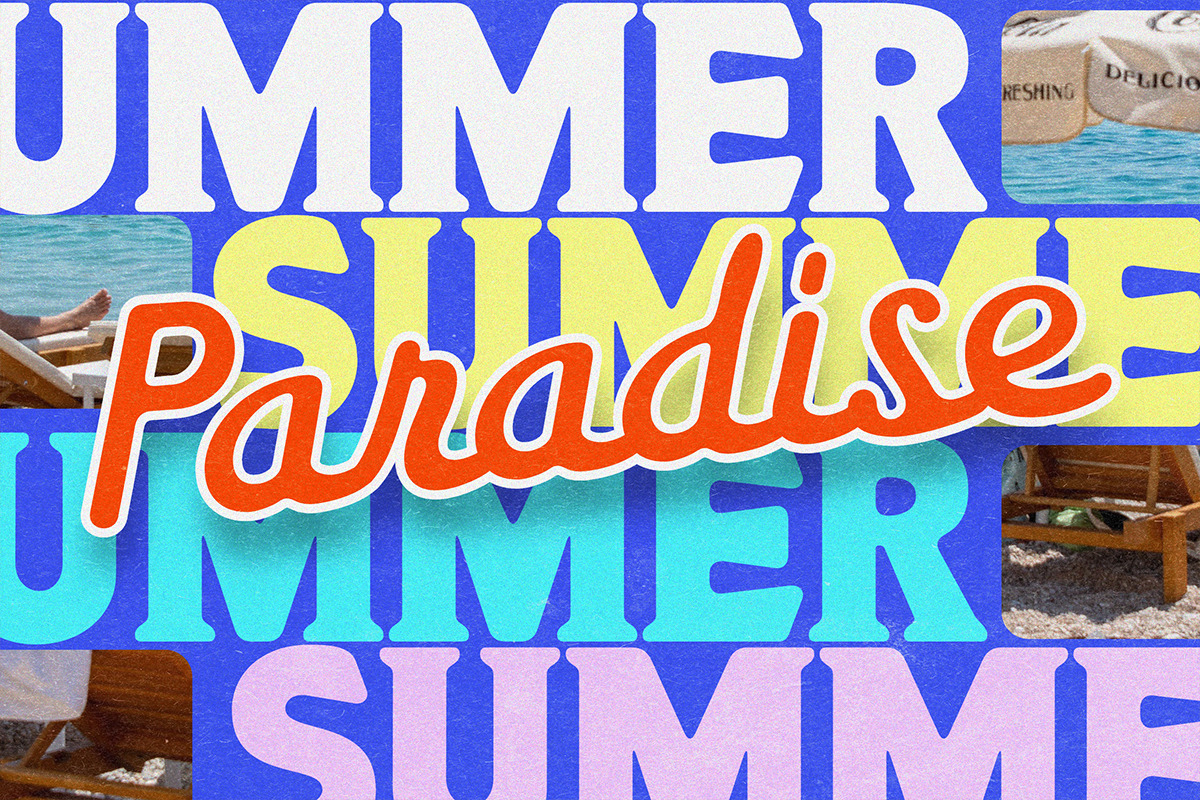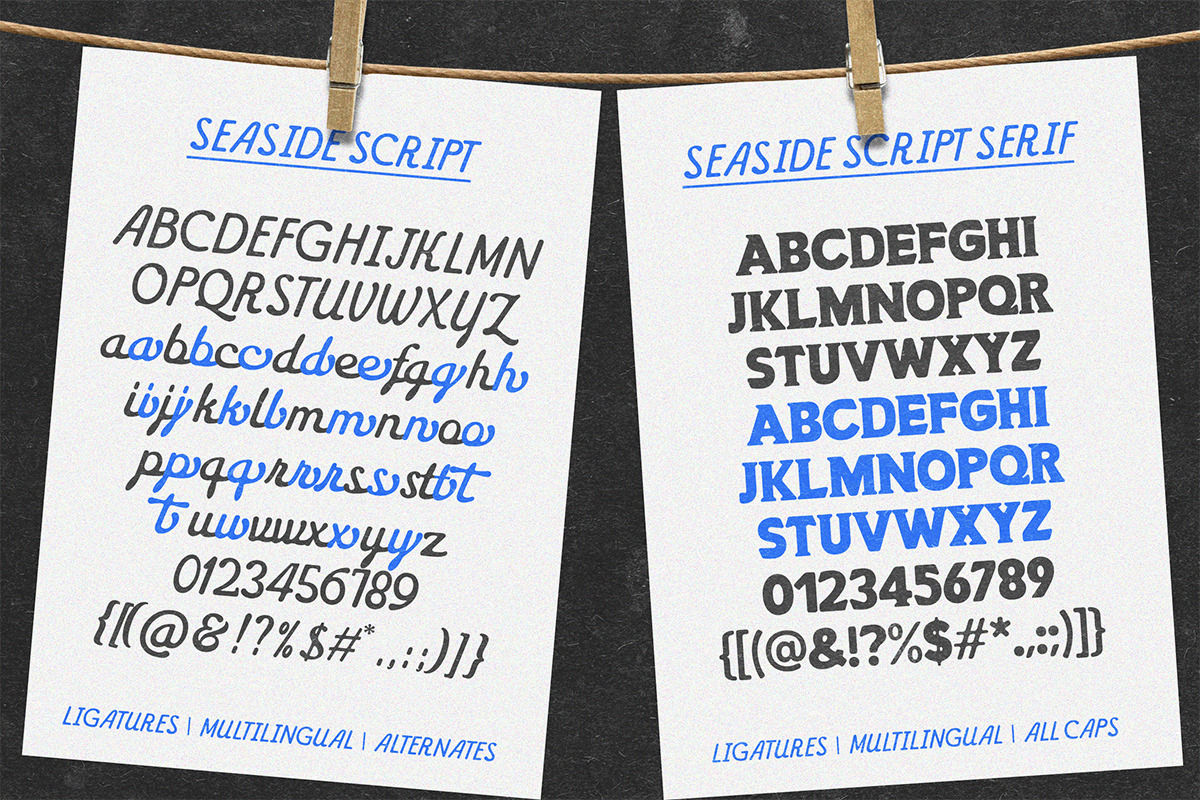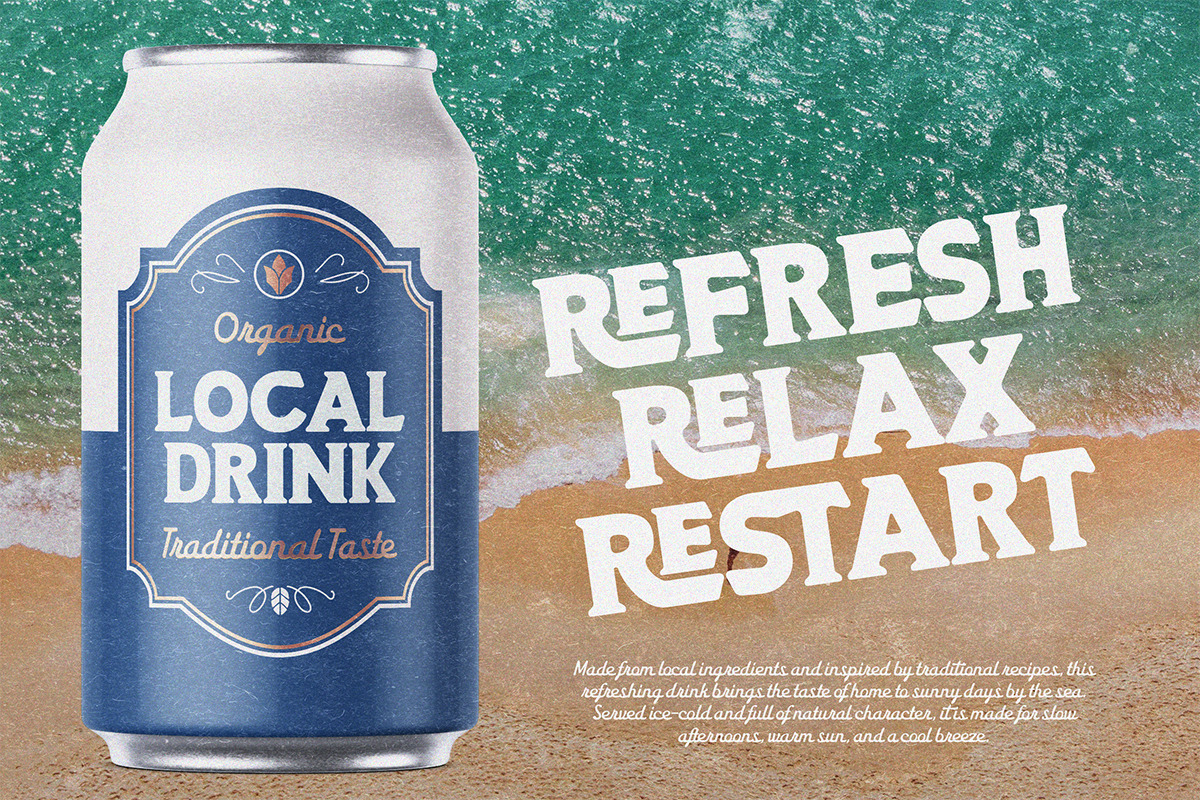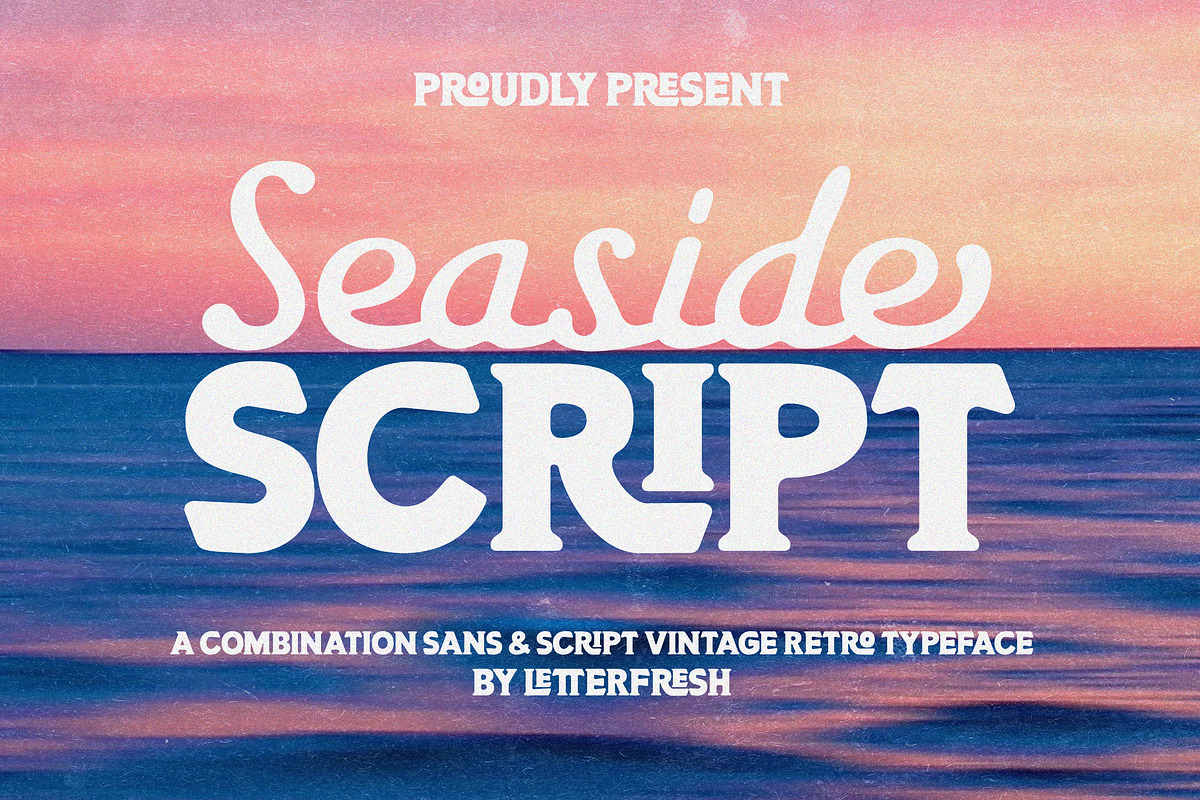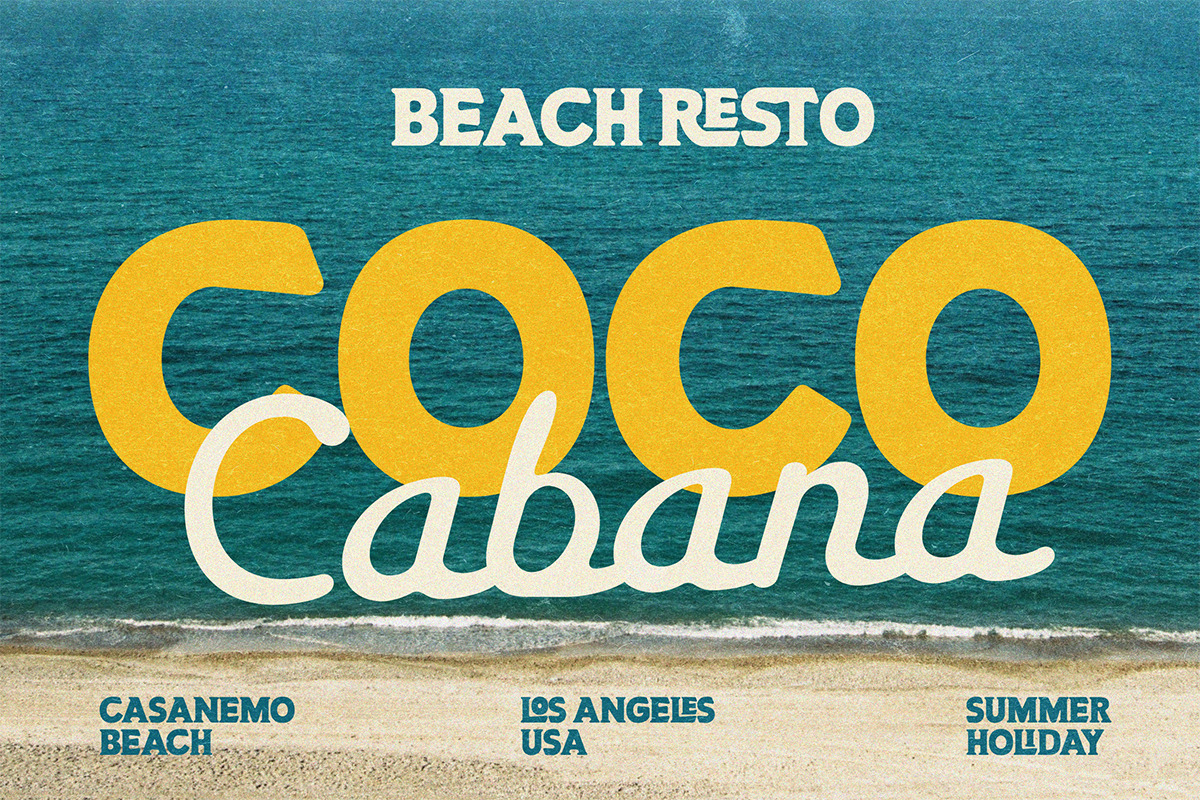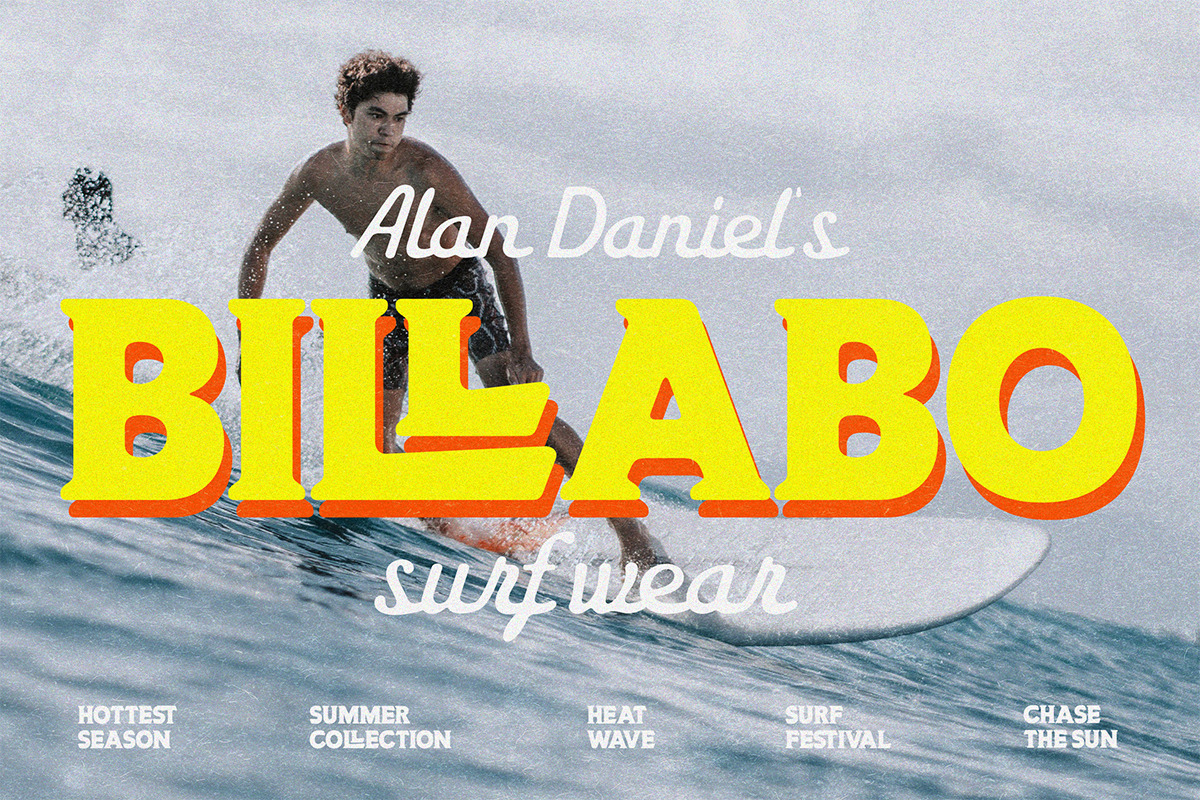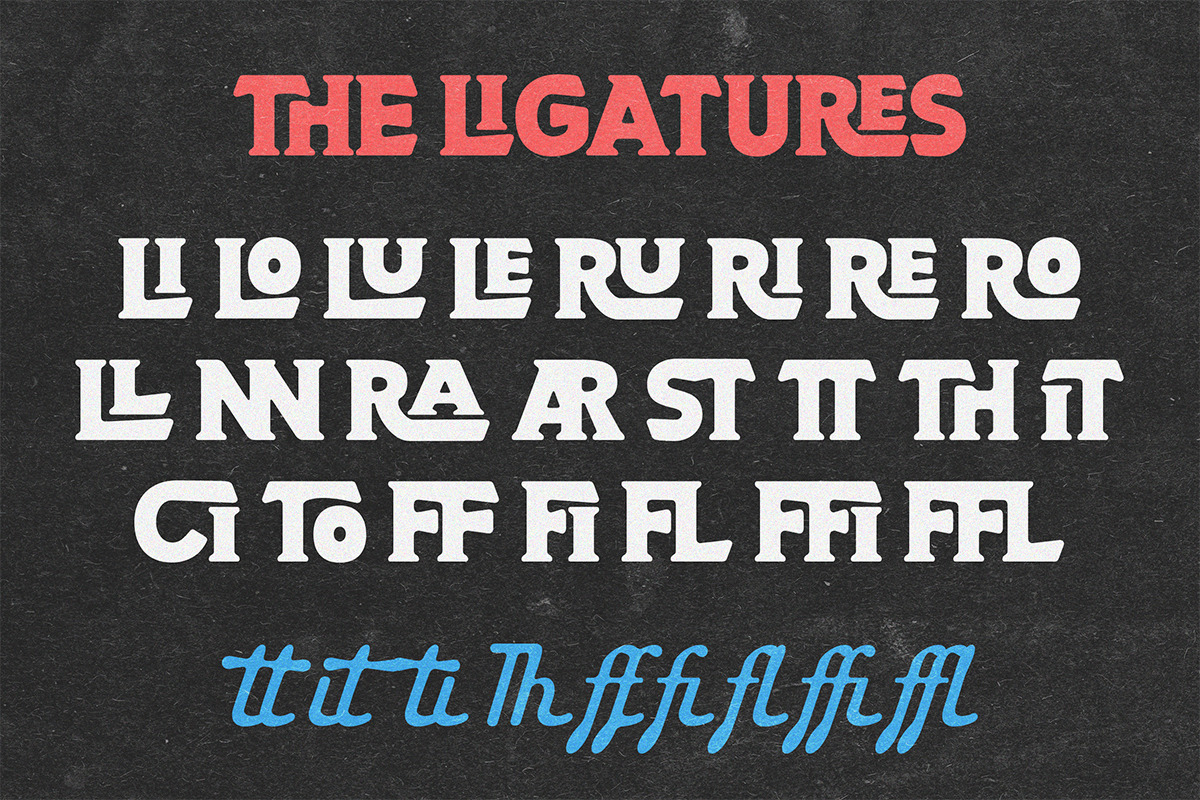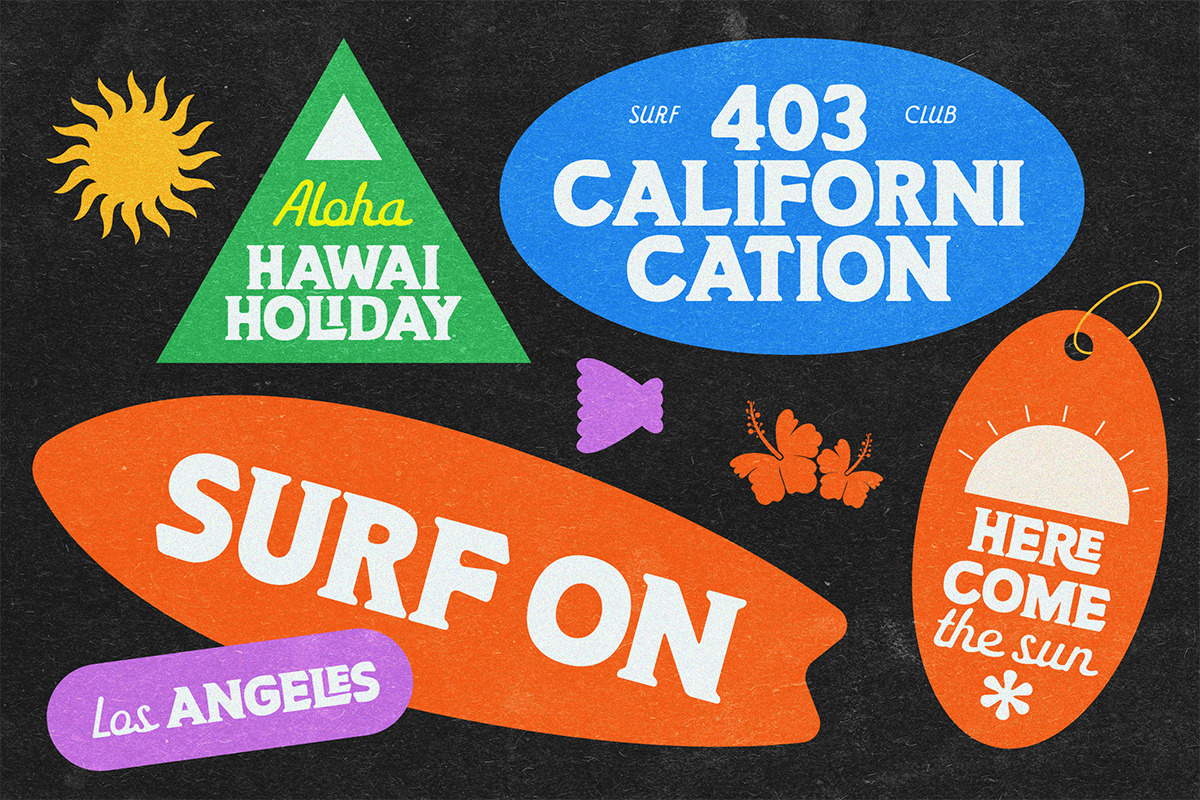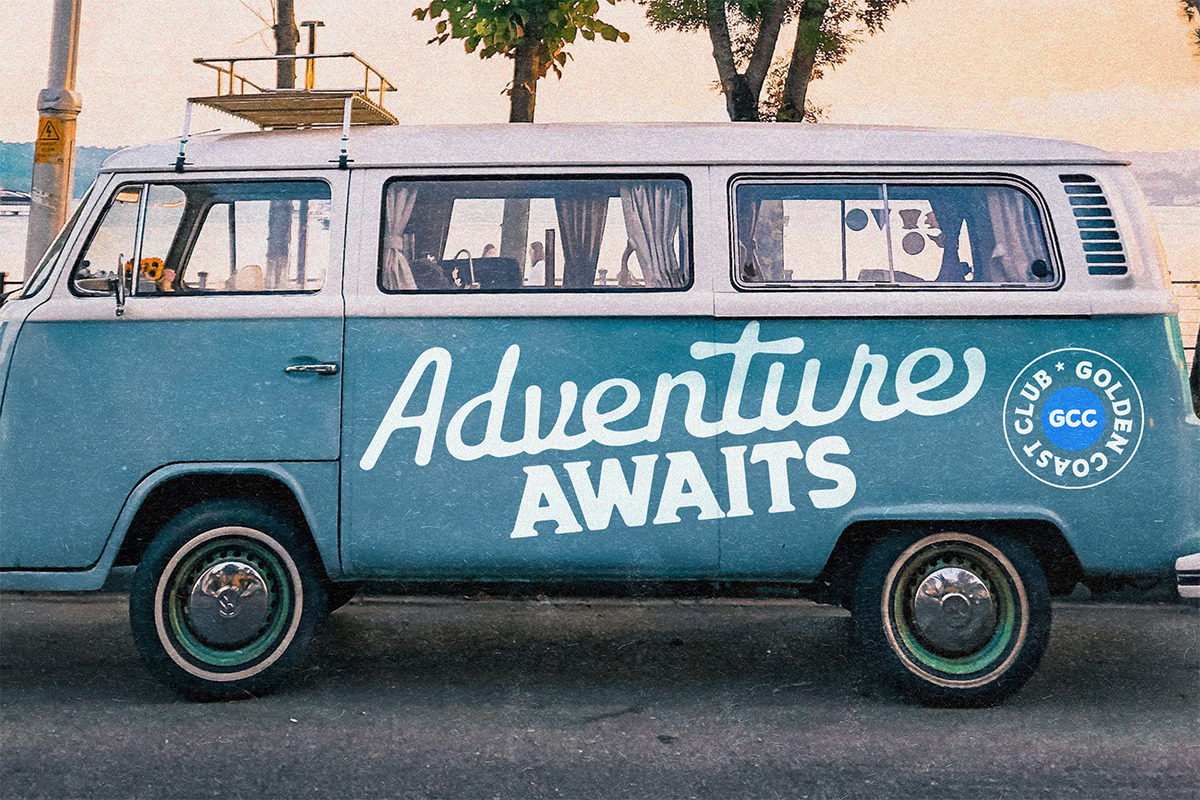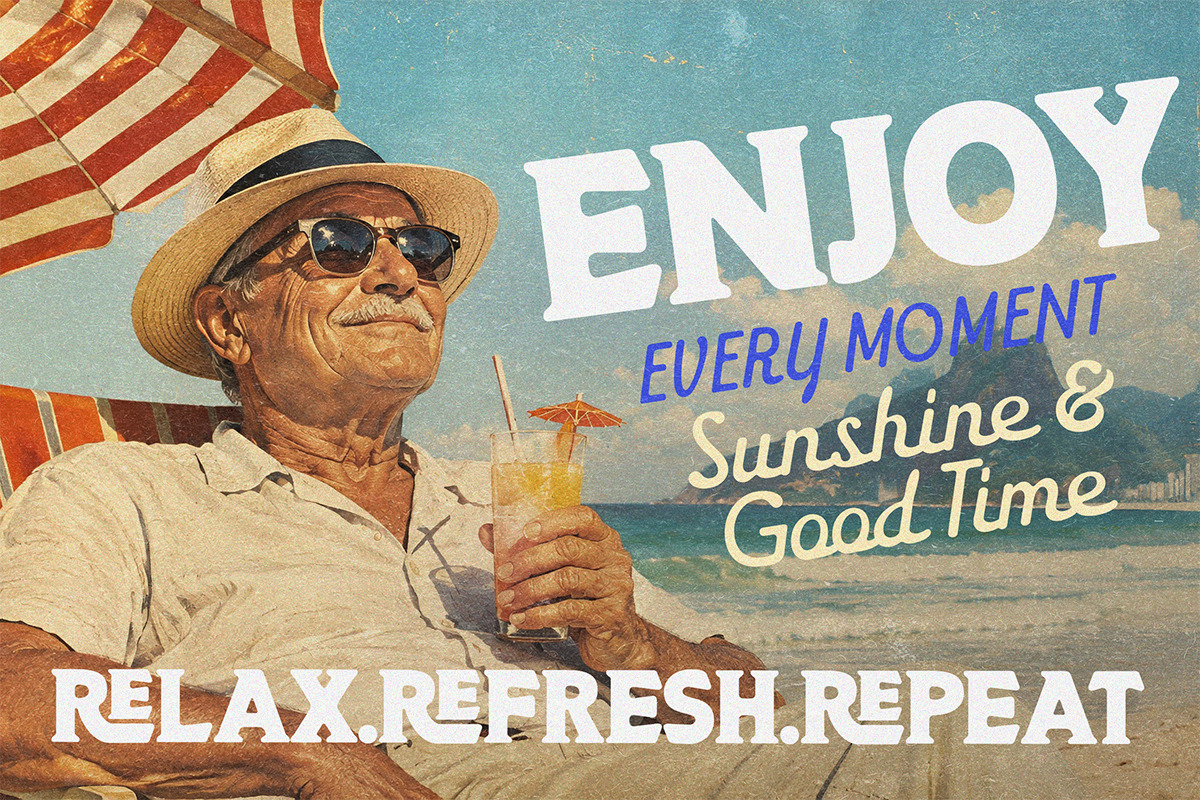
Seaside Script Duo
Seaside Script Duo is a vintage-inspired typeface duo that combines elegant script lettering with a bold and playful sans serif style. This unique combination creates a classic, nostalgic look with a strong retro character.
The script features flowing, organic, and expressive letterforms, while the bold sans serif adds a solid, powerful, and eye-catching presence. Together, they create the perfect aesthetic for designs inspired by summer, seaside culture, surf, and vintage Americana.
Logo & branding
Vintage posters
T-shirts & apparel
Packaging
Signage
Product labels
Beach & summer-themed designs
Event posters
Social media artwork
Typography & headlines
Seaside Script Duo is a charming vintage retro typeface duo that combines expressive script lettering with a bold, eye-catching sans serif. Inspired by nostalgic seaside culture, summer vibes, and classic retro signage, this versatile font duo is perfect for logos, posters, apparel, packaging, branding, and other creative projects.